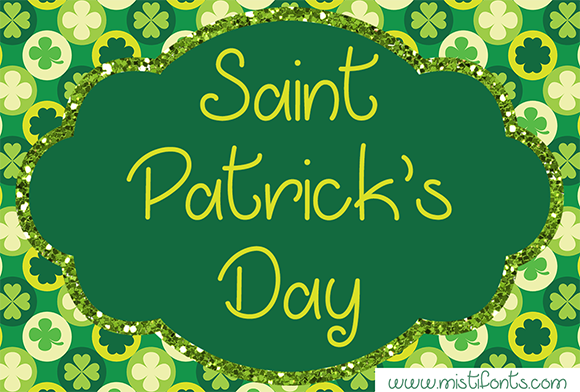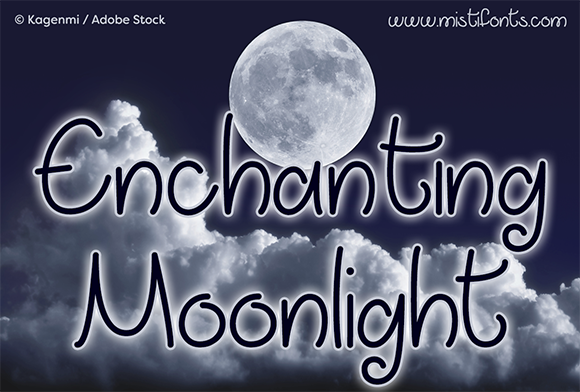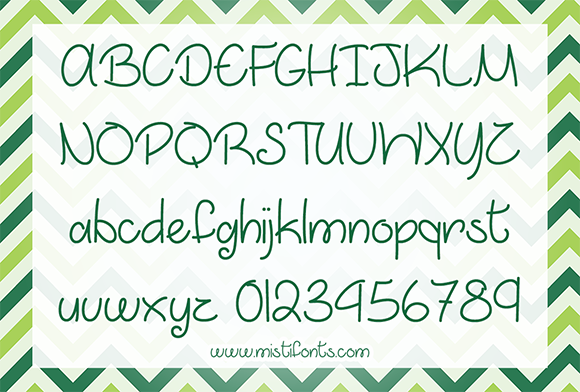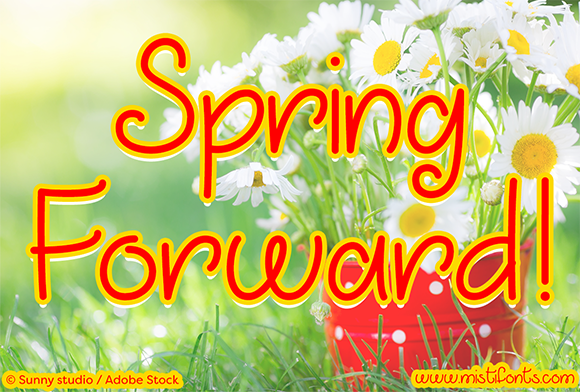
Introduction to March into Spring Font
As you’re brainstorming ideas for your next creative project, have you ever felt like something is missing? A spark of inspiration that will elevate your design from ordinary to extraordinary? For many designers, that spark comes in the form of a unique and captivating font. And that’s exactly what the March into Spring Font offers – a delightful, handwritten font that will add a touch of whimsy to any craft or design project.
Key Features of March into Spring Font
- High-quality design with a transparent background, perfect for creative projects and backgrounds.
- Features a unique and elegant design, ideal for spring-themed projects, events, and merchandise.
Honest Review: March into Spring Font
I recently had the chance to work with the March into Spring Font, and I must say it’s a lovely addition to any design project. The font is free to download, making it an excellent resource for designers working on a budget.
One of the standout features of this font is its high quality and unique aesthetic. It’s perfect for creative projects that require a touch of whimsy and elegance. The font’s transparent background allows for seamless integration with any design element.
Here are some of the things that work well with the March into Spring Font:
- Unique and stylish aesthetic
- High quality and crisp typography
- Perfect for creative and elegant projects
- Only a few styles are available, which may limit its versatility
- May not be suitable for more formal or conservative projects
Overall, I’m impressed with the March into Spring Font. It’s a great resource for designers looking to add some personality to their projects. Just be aware of its limitations and use it accordingly.
To get the most out of the March into Spring Font, try using it with a transparent background to create a clean and modern look. Experiment with different font sizes and styles to add visual interest to your design.
The March into Spring Font is perfect for designs related to spring, new beginnings, and renewal. Use it to create eye-catching posters, flyers, and social media graphics that celebrate the arrival of spring.
Q: Does the March into Spring Font have a transparent background?
Yes, the March into Spring Font features a transparent background, making it ideal for use on various design elements, such as icons, logos, and graphics. This allows for seamless integration with other design elements and ensures a clean, professional look.